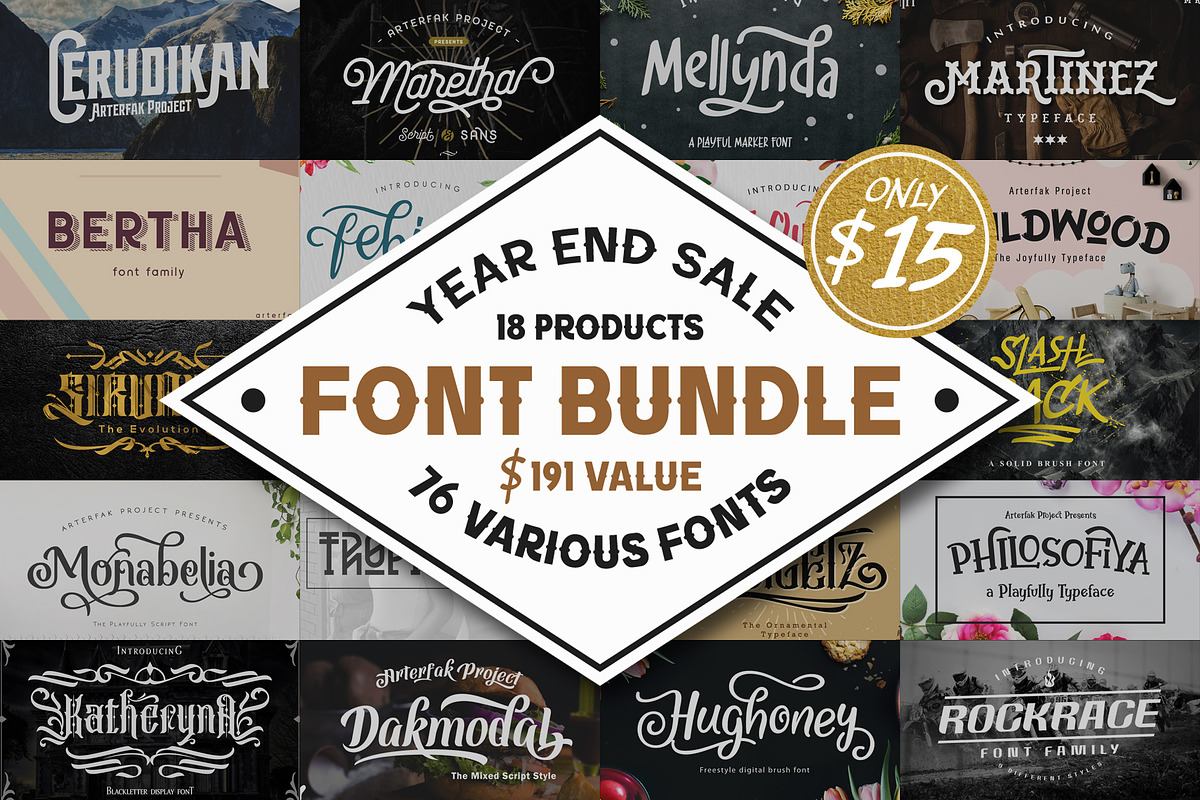
76 Fonts in 1 Font Collection Free Download
76 Fonts in 1 Font Collection Free Download is a powerhouse bundle packed with creative potential. Featuring a diverse range of styles—from elegant scripts and bold sans serifs to quirky displays and vintage-inspired fonts—this collection is perfect for designers who want versatility at their fingertips.
Whether you're working on logos, social media graphics, branding, packaging, invitations, or editorial layouts, this all-in-one set gives you endless flexibility and creative control. With 76 fonts to choose from, you can mix, match, and experiment with ease.